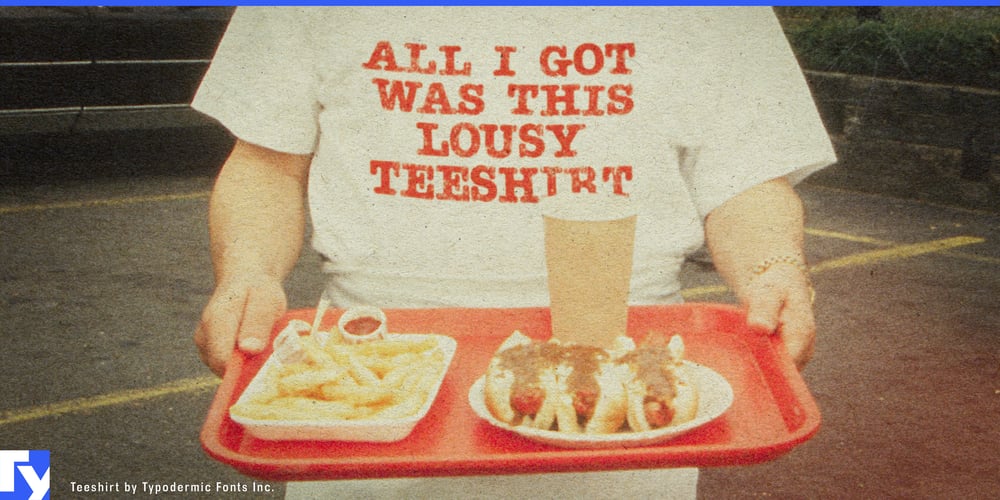
Teeshirt Font Family was designed by Ray Larabie and published by Typodermic. Teeshirt contains 2 styles and family package options. Hey, typography enthusiasts—kick back and relax because Teeshirt is here to bring that effortlessly cool, vintage vibe to your designs. Inspired by the iconic American Typewriter font that dominated the ’70s and ’80s, Teeshirt captures the essence of laid-back style without trying too hard.Remember those comfy, worn-in tees from back in the day? Teeshirt embodies that same casual charm in digital form. It’s not about perfection—it’s about character. With its unique letter pair ligatures, Teeshirt gives your text that authentic, slightly imperfect look that says, “Yeah, I’m cool with whatever.” Feeling like mixing it up? No sweat. You can always disable the “standard ligatures” feature in your app for a different flavor. It’s all about options, man.Teeshirt comes in two chill styles: Regular and Pressed. The Regular style’s got that bouncy, carefree attitude—like letters that just woke up from a nice nap. Pressed? It’s for when you want to look sharp without looking like you’re trying too hard. This typeface isn’t just a one-hit wonder, either. It’s fluent in a whole bunch of Latin-based European languages, making it your go-to font for projects that span borders but keep it casual.So why not give Teeshirt a spin? It’s perfect for when you want your designs to look effortlessly stylish, with just the right touch of nostalgia. Because sometimes, the coolest look is the one that seems like it didn’t take any effort at all. Download Teeshirt now and let your designs chill out in style.